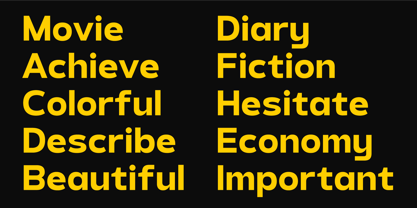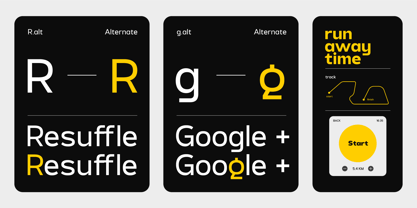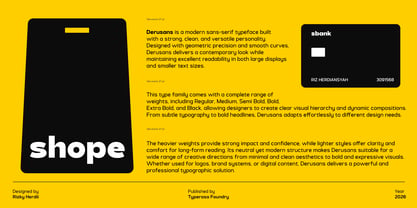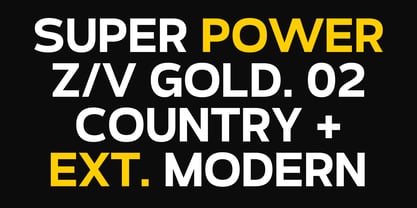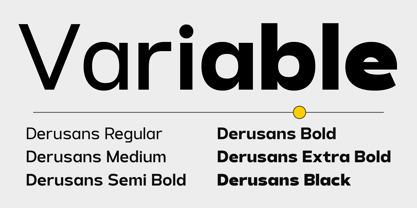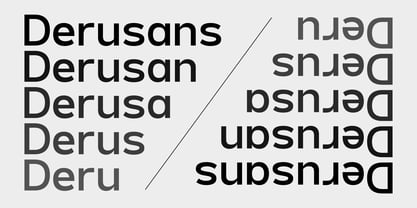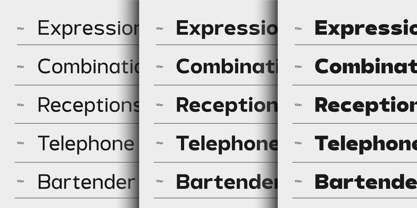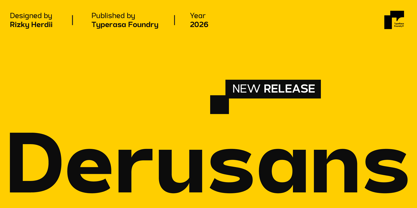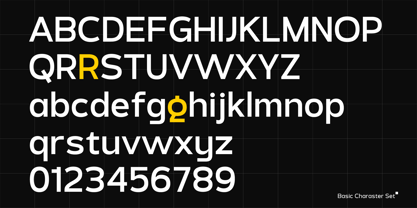
Derusans
The Derusans Font Family was designed by Rizky Herdii and published by Typerasa. Derusans contains 6 styles and family package options. More about this family
Derusans is a modern sans-serif typeface characterized by a strong, clean, and versatile personality. Designed with geometric precision and smooth curves, Derusans offers a contemporary appearance while ensuring excellent readability in both large displays and smaller text sizes. The heavier weights provide a strong impact and confidence, while the lighter styles offer clarity and comfort for long-form reading. Its neutral yet modern structure makes Derusans suitable for a wide range of creative directions, from minimal and clean aesthetics to bold and expressive visuals. Whether utilized for logos, brand systems, or digital content, Derusans presents a powerful and professional typographic solution.